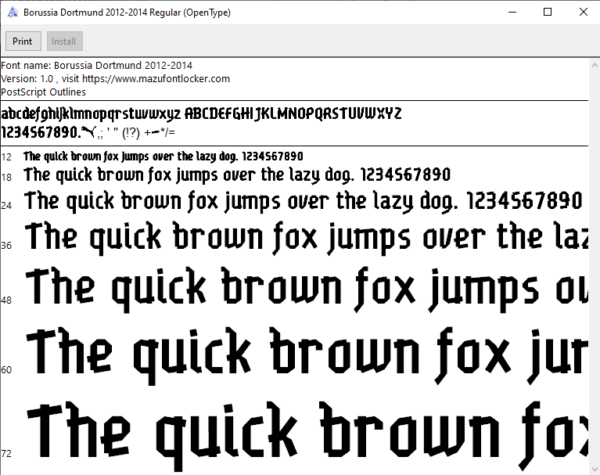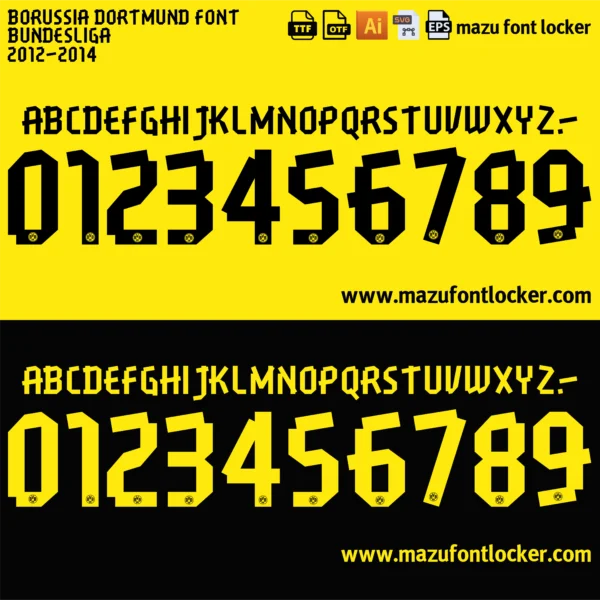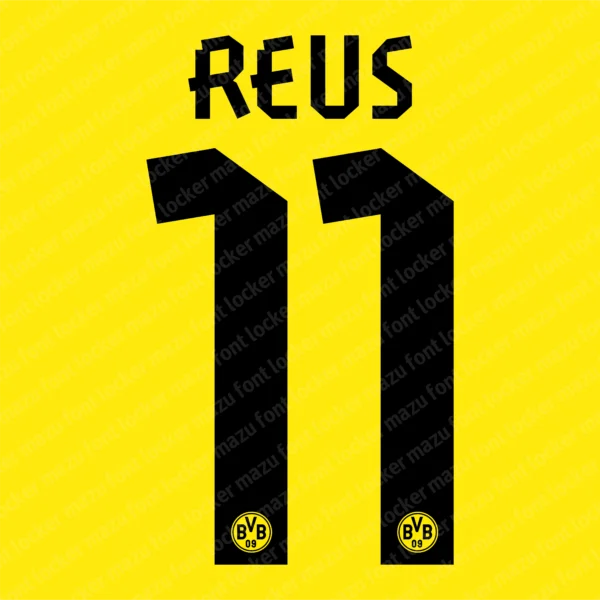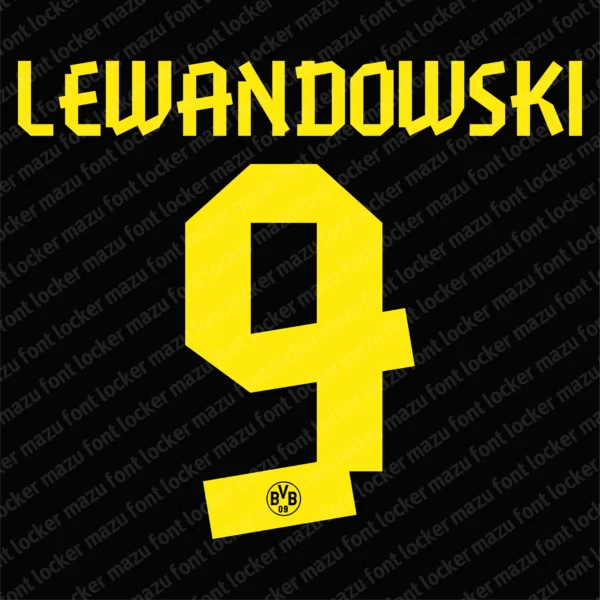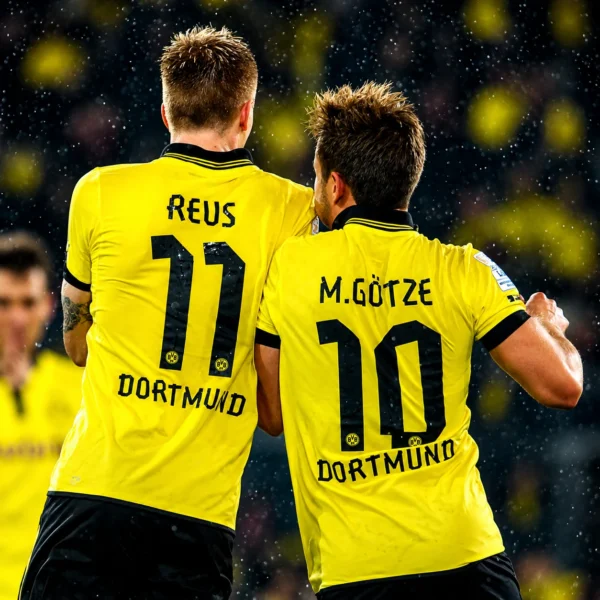
Borussia Dortmund 2012-2014 Font Vector – Legendary Black & Yellow Glory Design
Borussia Dortmund 2012-2014 Font Vector – Authentic BVB Typeface
The Borussia Dortmund 2012-2014 Font Vector is a premium typeface that accurately recreates the official match lettering worn by Borussia Dortmund during their iconic 2012-2014 period. This high-quality vector font kit captures the bold, aggressive, and modern typography that represents one of the most exciting and successful eras in the club’s history.
Designed for professional designers and passionate Borussia Dortmund fans, the Borussia Dortmund 2012-2014 Font Vector delivers perfect authenticity for creating realistic jersey mockups, fan merchandise, matchday posters, social media graphics, and nostalgic football content. It pairs beautifully with the iconic yellow home kit featuring the famous BVB crest.
Why Choose Borussia Dortmund 2012-2014 Font Vector
This font stands out because of its sharp vector details and strong club identity. Every letter and number is crafted to match the exact style used on the players’ shirts during the memorable 2012-2014 seasons. Whether you are making realistic kit templates or nostalgic football content, the Borussia Dortmund 2012-2014 Font Vector gives your designs that authentic Yellow Wall look.
The letterforms in the Borussia Dortmund 2012-2014 Font Vector are tall, bold, and highly readable. The strokes have a strong, clean weight with excellent edge definition that looks powerful on the back of jerseys while maintaining modern elegance and clarity.
• Full uppercase A–Z and numbers 0–9 in authentic Borussia Dortmund 2012-2014 style
• Special BVB crest glyph for accurate shirt number detailing
• Create highly realistic Borussia Dortmund 2012-2014 home and away jersey mockups with accurate lettering
• Design stunning nostalgic posters, score graphics, and squad announcements
• Produce custom Borussia Dortmund merchandise with the classic 2012-2014 aesthetic
Borussia Dortmund 2012-2014 Era
Under the management of Jürgen Klopp, Borussia Dortmund enjoyed a golden era between 2012 and 2014. The team won back-to-back Bundesliga titles, reached the 2013 UEFA Champions League Final, and played some of the most exciting, high-pressing football in Europe. Stars such as Robert Lewandowski, Marco Reus, Mario Götze, and Mats Hummels became legends during this unforgettable period.
The Borussia Dortmund 2012-2014 Font Vector is an independently designed typeface package. It is carefully crafted to replicate the official shirt lettering style of the 2012-2014 seasons. This font kit is perfect for creative projects, fan edits, nostalgic jersey designs, and custom football graphics.